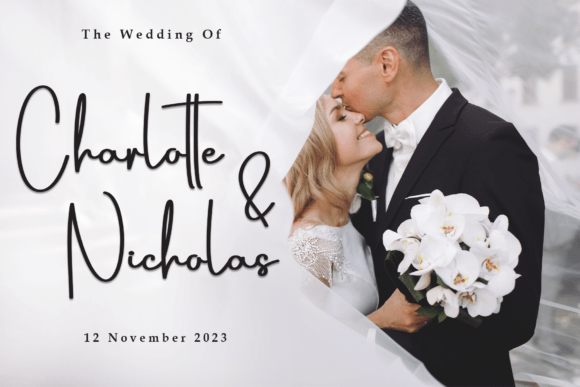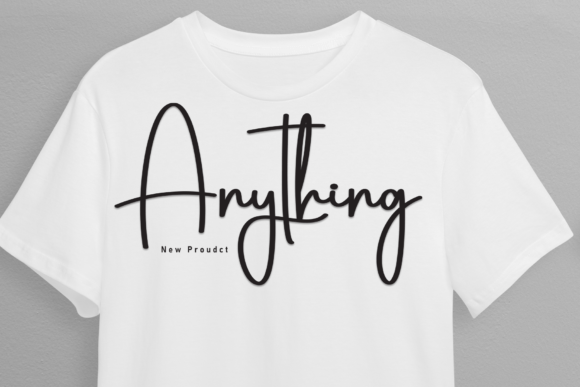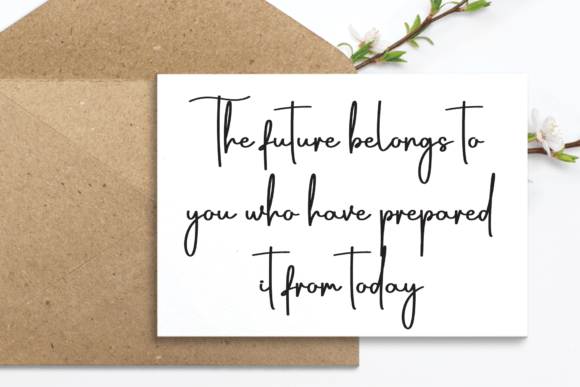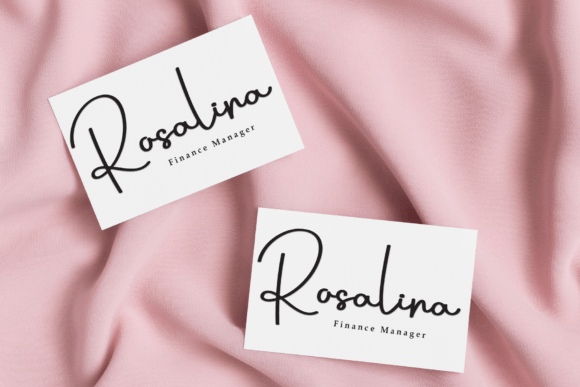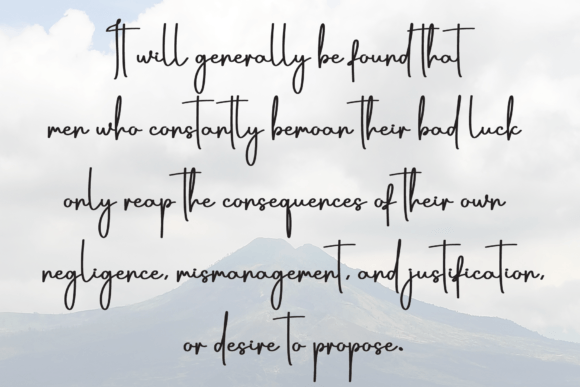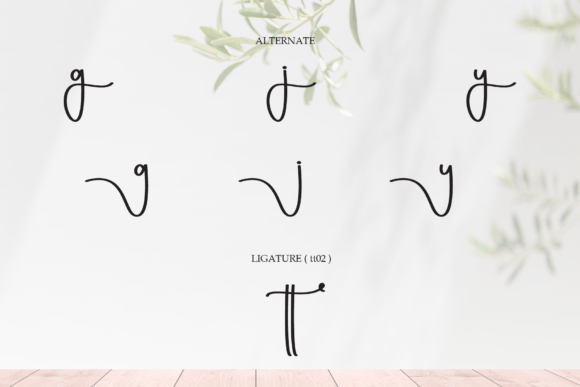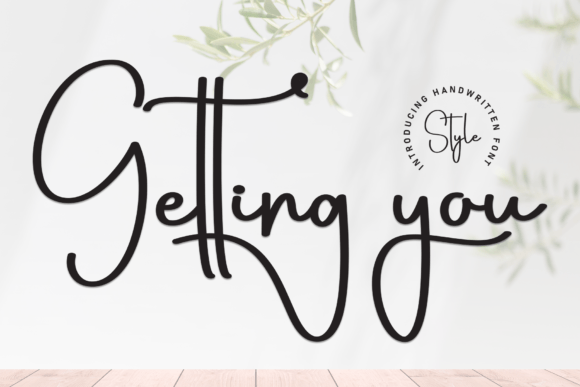
Introducing Getting You Font: The Sweet and Friendly Handwritten Font
Are you tired of using the same old fonts in your designs? Look no further! Getting You font is a beautiful, handwritten font that is sure to add a touch of personality to your projects. With its natural and unique style, Getting You is incredibly versatile and can be used in a wide range of designs, from invitations and greeting cards to branding and advertising.
The Characteristics of Getting You Font
Getting You font is a sweet and friendly handwritten font that is designed to make your designs stand out. Its natural and unique style gives it a personal touch that is hard to find in digital fonts. The font has a smooth and flowing script that is easy to read, making it perfect for use in a variety of designs.
One of the best things about Getting You font is its versatility. It can be used in both digital and print designs, and its friendly and approachable style makes it perfect for use in a wide range of projects, from formal invitations to social media graphics.
The Benefits of Using Getting You Font
So why should you choose Getting You font for your next design project? Here are just a few of the benefits of using this beautiful font:
- Unique and eye-catching: Getting You font has a unique and eye-catching style that is sure to make your designs stand out.
- Versatile: The font can be used in a wide range of designs, from formal invitations to social media graphics.
- Easily readable: The smooth and flowing script of Getting You font makes it easy to read, even at small sizes.
- Personal touch: The natural and unique style of Getting You font gives it a personal touch that is hard to find in digital fonts.
Inspiration for Using Getting You Font
Getting You font is a versatile font that can be used in a wide range of designs. Here are a few ideas to get you started:
- Invitations: Use Getting You font to create beautiful and unique invitations for weddings, birthday parties, and other special occasions.
- Greeting cards: The friendly and approachable style of Getting You font makes it perfect for use in greeting cards for birthdays, holidays, and other special occasions.
- Branding: Use Getting You font to add a personal touch to your brand’s logo, packaging, and marketing materials.
- Social media graphics: The smooth and flowing script of Getting You font makes it perfect for use in social media graphics, such as quotes, posters, and ads.
In conclusion, Getting You font is a beautiful and versatile handwritten font that is sure to add a touch of personality to your designs. With its natural and unique style, Getting You is incredibly fitting to a large pool of designs, and the only limit is your imagination! Whether you’re a designer, crafter, or DIY enthusiast, Getting You font is a great choice for any project.